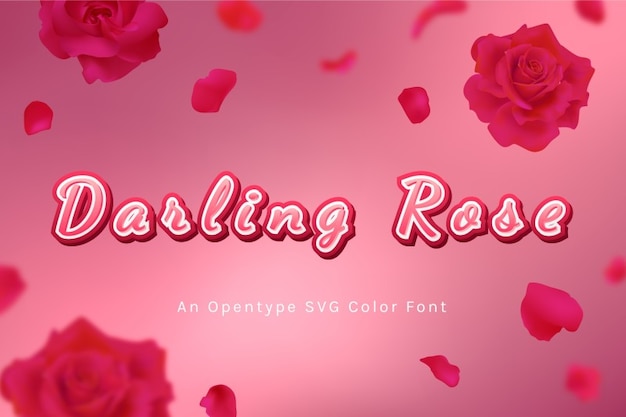
Darling rose Font
The dreamy handwritten font that's all about floral romance and fancy vibes! Embrace the delicate charm of each stroke, as it dances like petals on paper. Perfect for adding a touch of love and elegance to your designs! Let the romance bloom and your creativity blossom with Darling Rose!